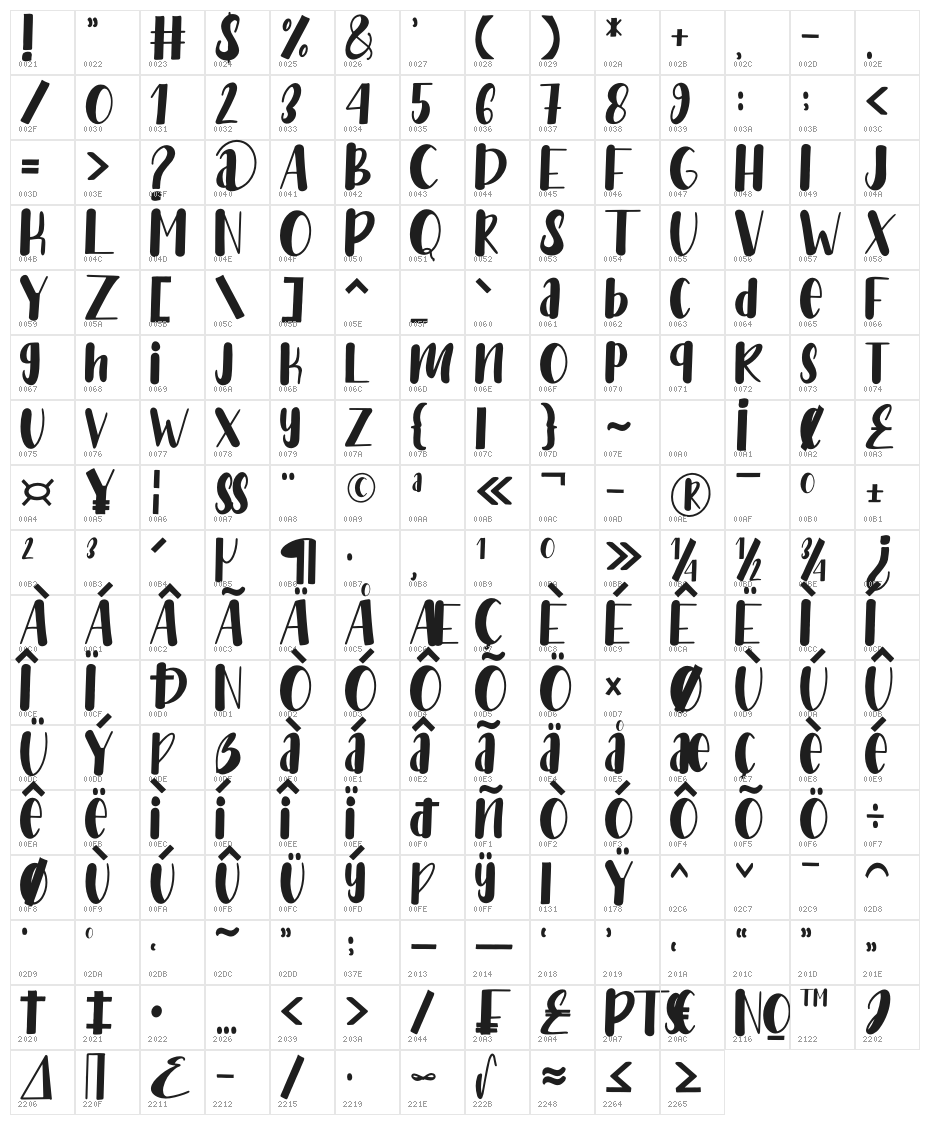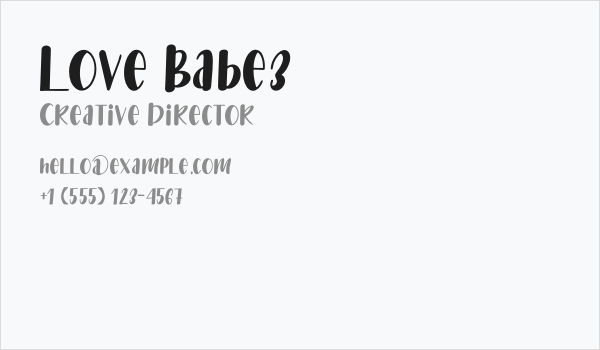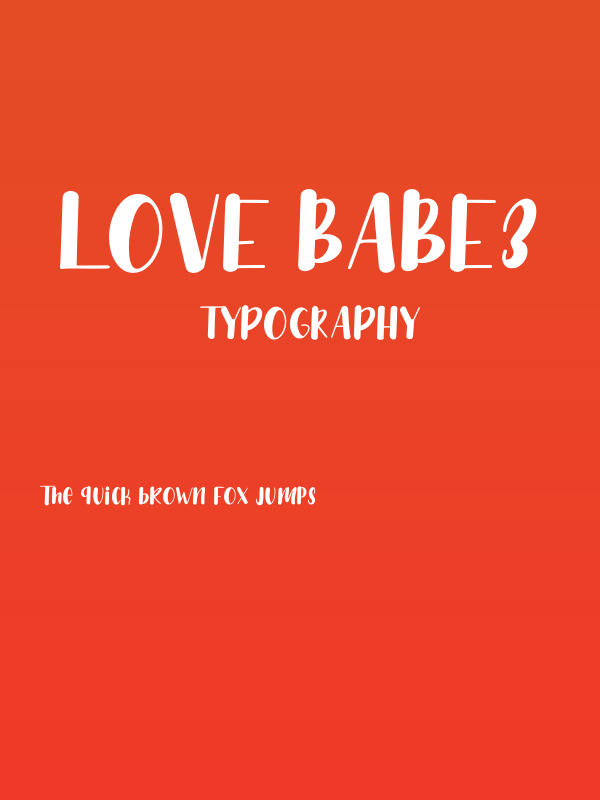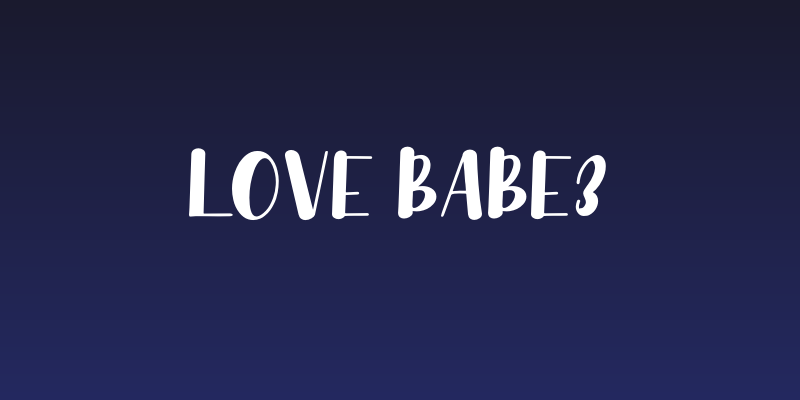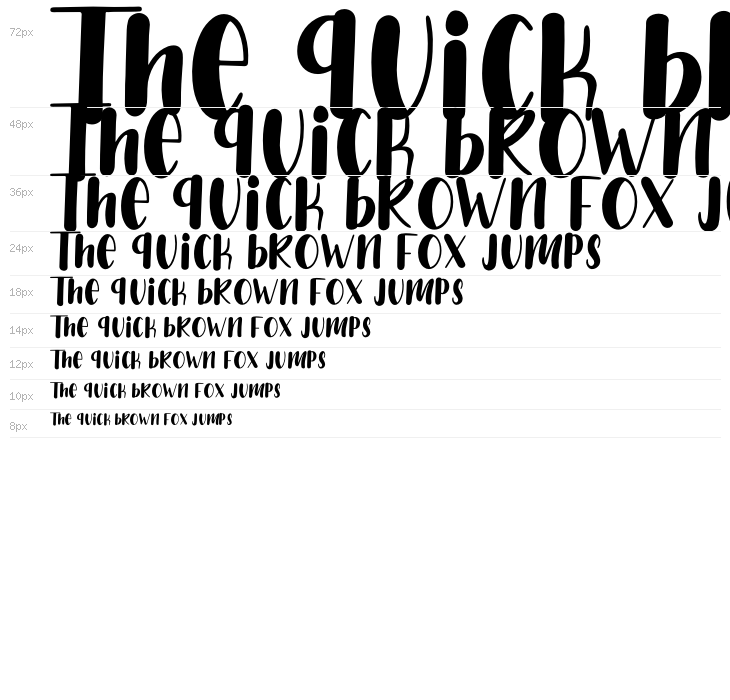
Love Babe3 Font
Love Babe3 Description
This font features a playful and bold script style with a hand-drawn appearance. The letters are slightly slanted, giving a dynamic and lively feel. The strokes are thick and consistent, with smooth curves and rounded edges that add to its friendly and approachable look. The uppercase and lowercase letters maintain a cohesive style, while the numerals and special characters are designed to match the overall aesthetic. This font is ideal for projects that require a personal touch, such as invitations, greeting cards, or branding materials. Its unique style makes it stand out, while still being legible and versatile.
| Use Case | Logos, Headlines, Invitations |
| Proposed Projects | Ideal for invitations, greeting cards, branding, and playful designs. |